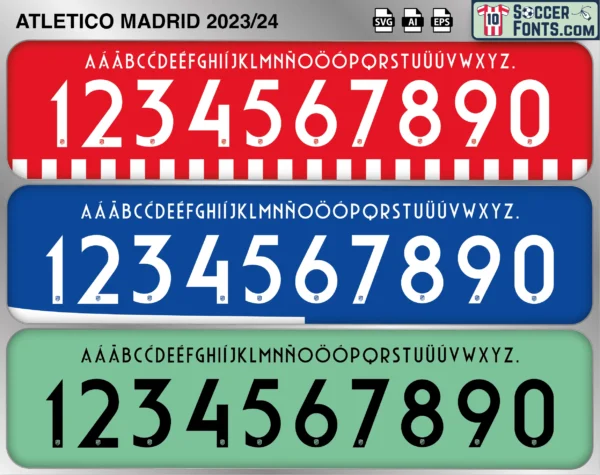
Atletico Madrid 2023-24 Font
The Atletico Madrid 2023-24 font is an editable soccer jersey lettering design in vector format inspired by the Atletico Madrid kit style used during the 2023-24 football season. This football font artwork is prepared for football shirt recreations, custom jersey projects, football kit mockups and sports graphic design workflows.
Atletico Madrid 2023-24 font football shirt vector design